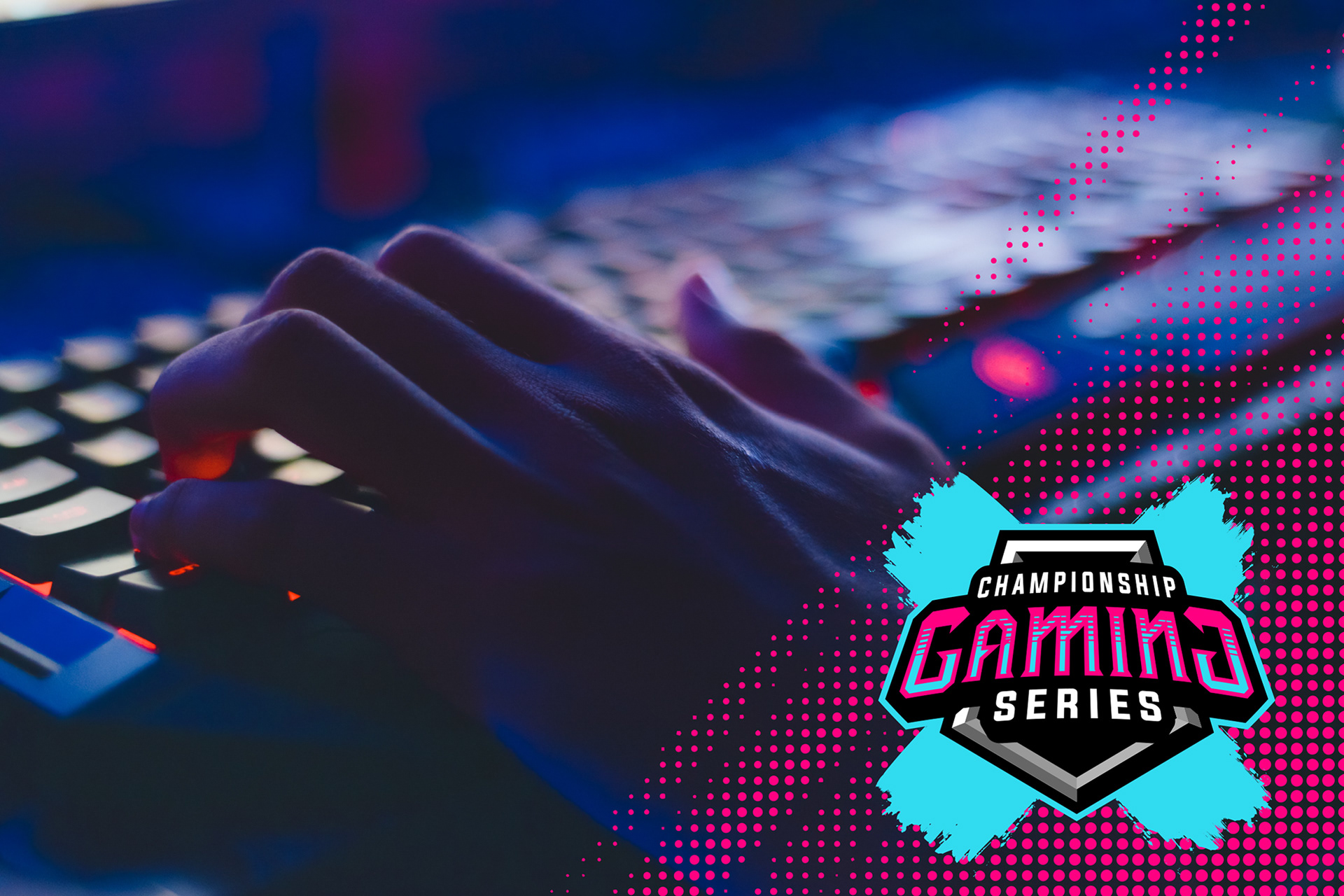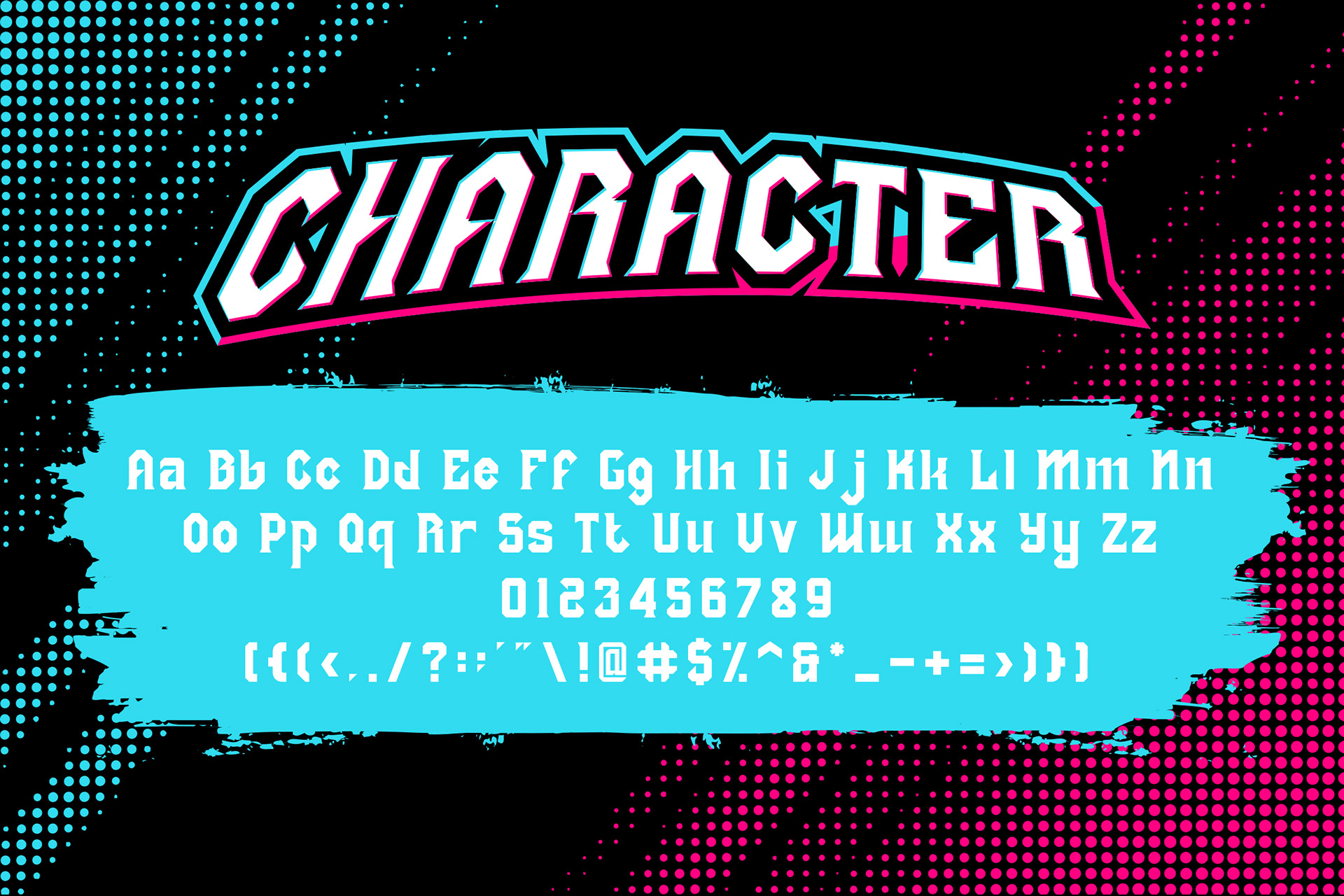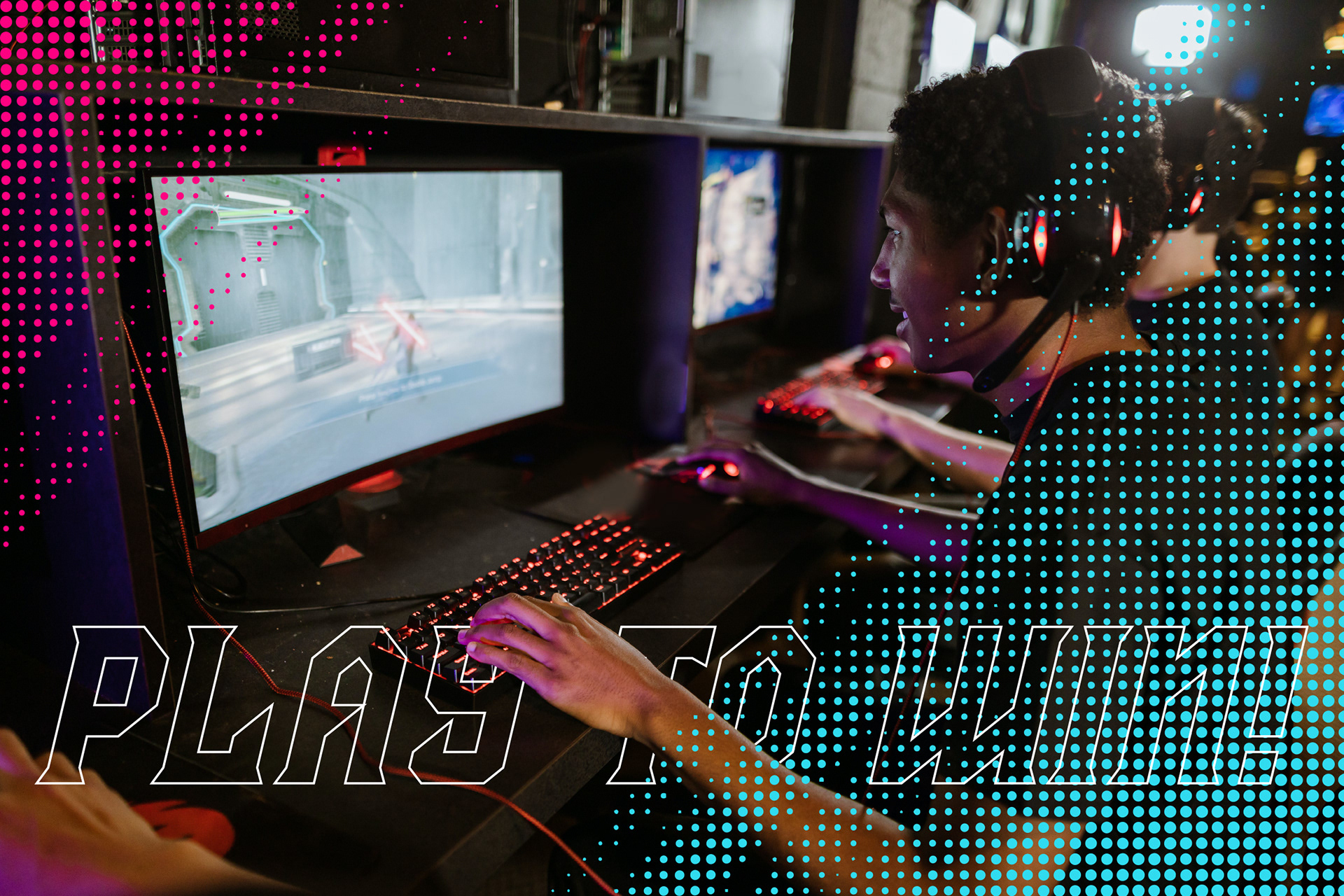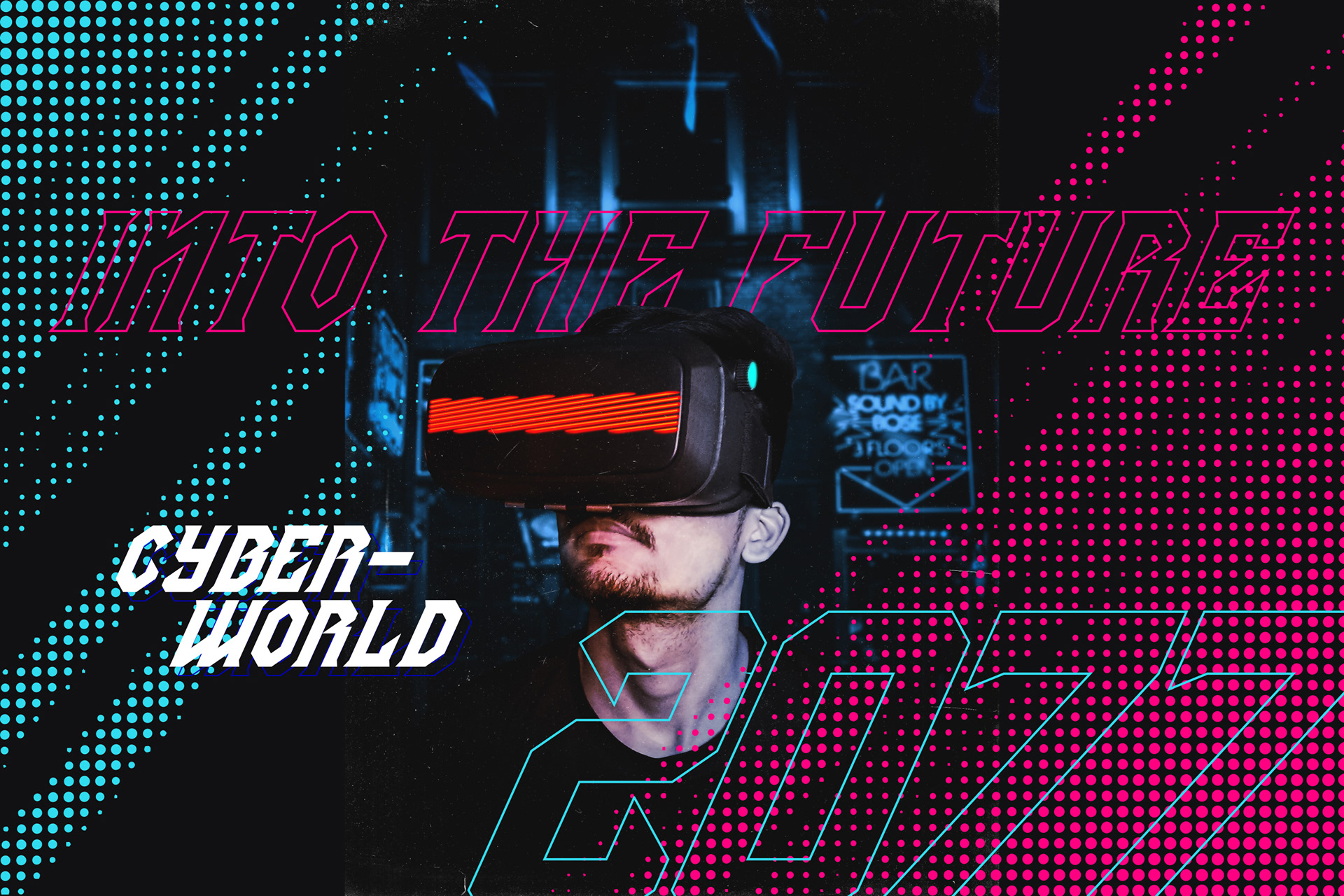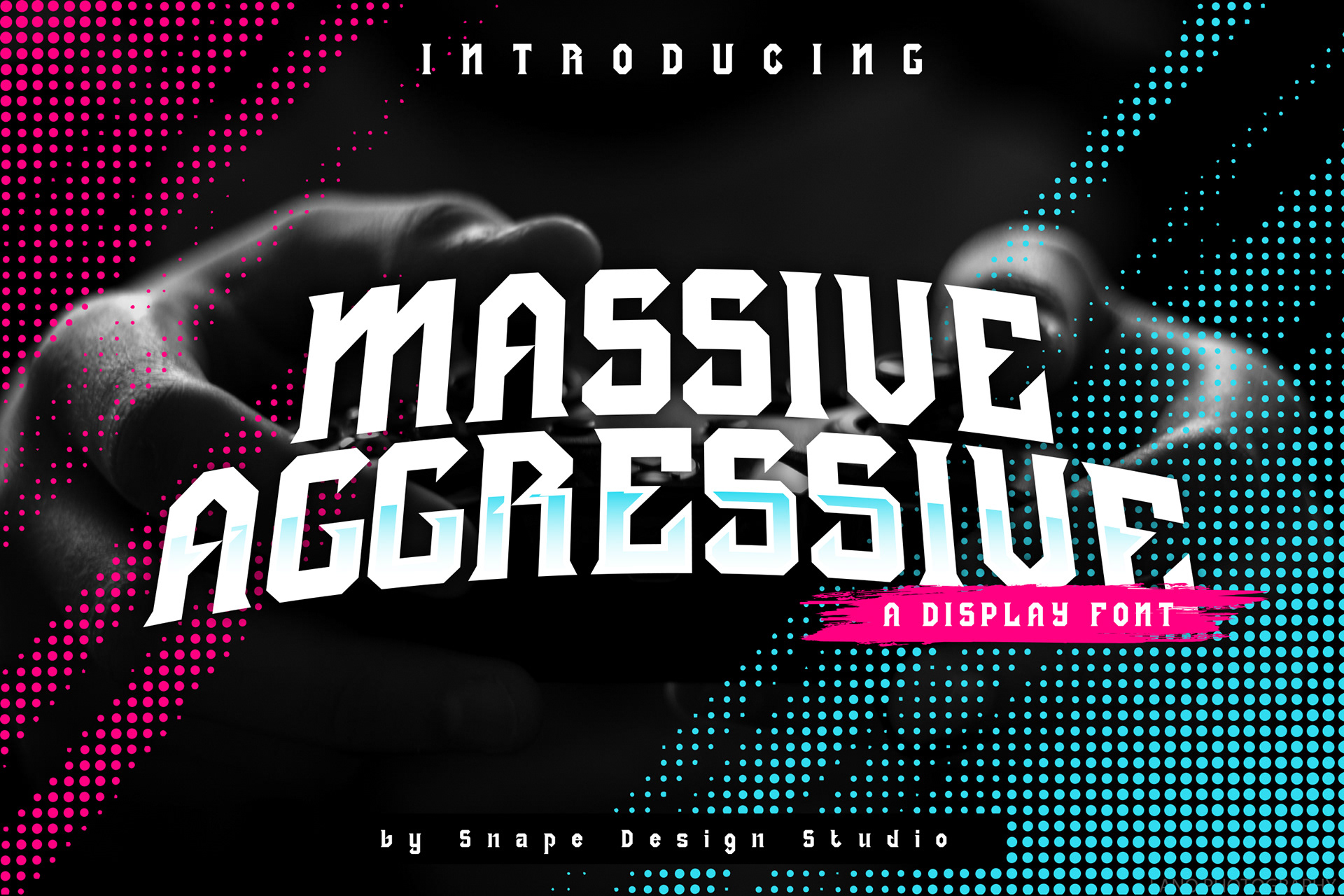
Massive Aggressive is a bold display font, incredibly strong and powerful. Add it to your sporty events and notice how your designs will come up front! Suitable for sport design, team, jersey, league, movie, documenter, film, logo, poster, game, book cover, headlines, title and many more projects. Add this font to your creative ideas and notice how it will make them stand out!
Massive Aggressive - Display Font design by Ario Sabrang Damar publish under Snape Design Studio